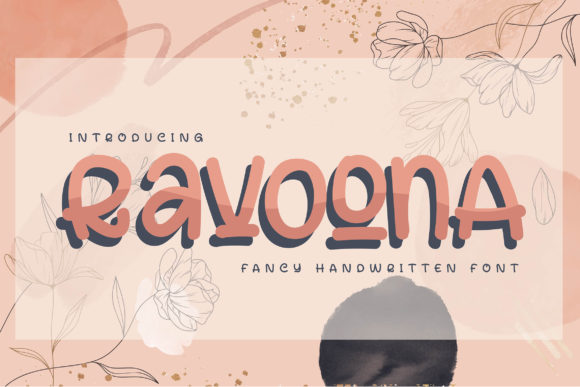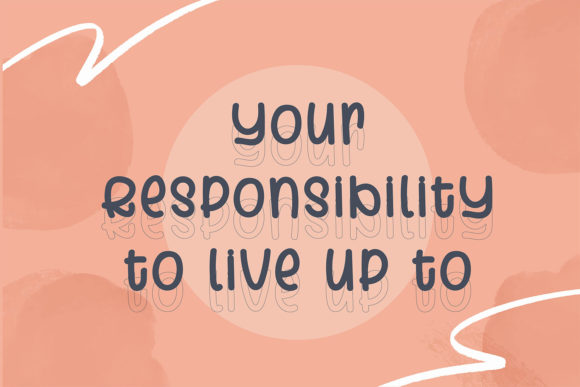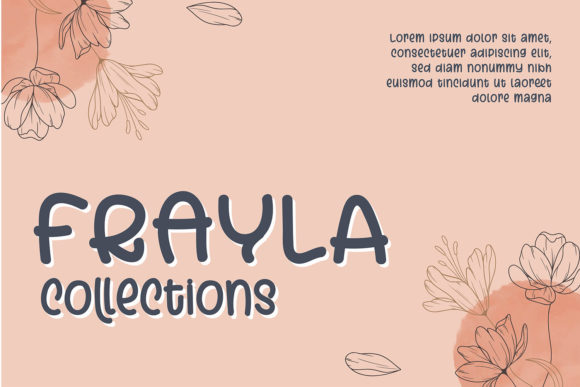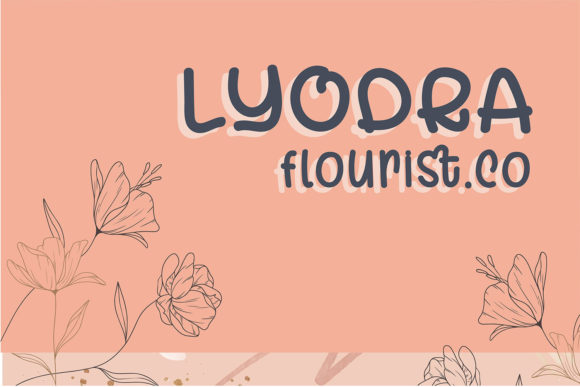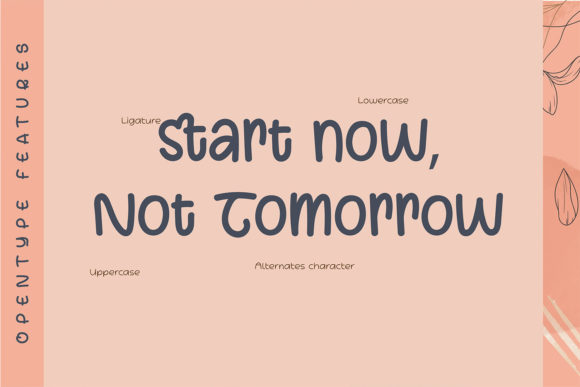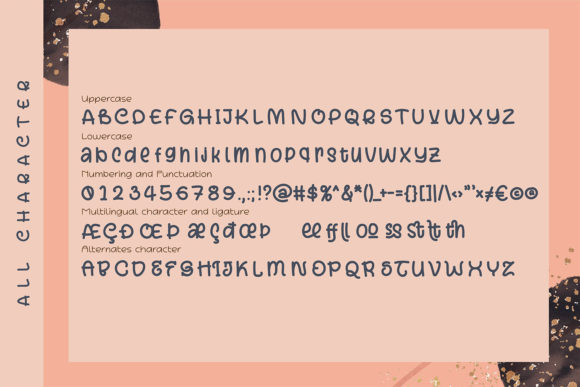
Ravoona Font
About Ravoona Font
Ravoona is a fancy handwritten font that embodies charm and friendliness in every character. It is easy to read and beautifully flowing, just perfect for a variety of creative projects! This font is PUA encoded which means you can access all of the glyphs and swashes with ease!